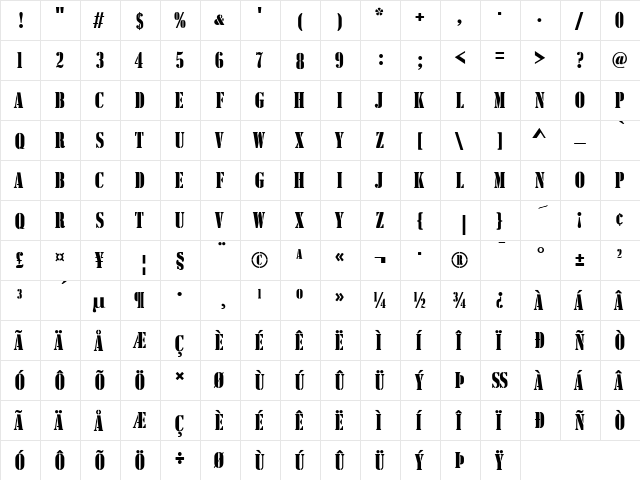
Stencil Compress D Regular
Design Context for Stencil Compress D Typeface
Stencil Compress D has the rough pragmatism of spray-painted stencil signage, adding a raw, street-level authenticity to designs.
Ideal for industrial branding, streetwear, military-adjacent aesthetics, and urban signage projects.
Pro Tip: Pair Stencil Compress D with raw, utilitarian design elements — exposed concrete textures, flat colour, and minimal ornamentation suit it well.